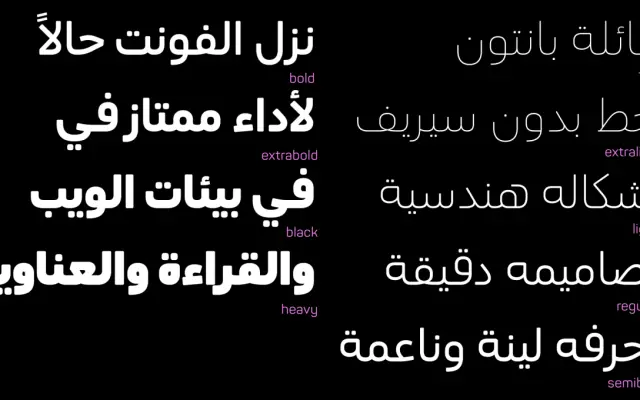
Panton Arabic
Fontfabric · Leo Guibert, Nadine Chahine (consulting), Plamen Motev · 2026
An Arabic extension of the Panton family, sharing its softened geometric construction across Latin, Cyrillic and Arabic scripts in nine static weights plus a variable font.
Designed by Leo Guibert with consulting from type specialist Nadine Chahine, Panton Arabic extends the Fontfabric bestseller into Arabic script while preserving the rounded geometric character of the original. The family covers nine static weights from Thin to Heavy alongside a variable font, with broad multilingual support across Extended Latin, Cyrillic and Arabic. OpenType features include alternates, stylistic sets, ligatures and localised forms, making it suited to brand systems and interfaces that must perform consistently across multiple scripts.
Described explicitly as a geometric sans with softened construction; the Arabic extension matches the visual language of the Latin/Cyrillic Panton family through a shared rounded geometric structure.